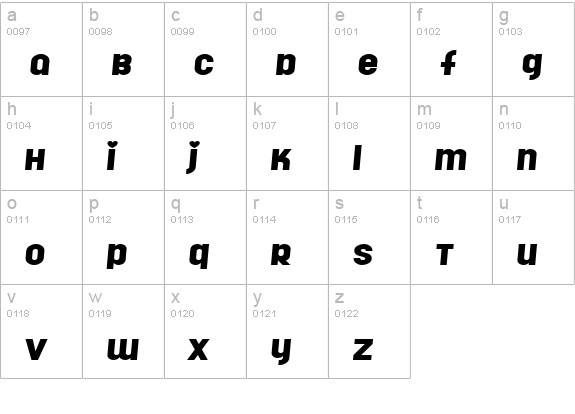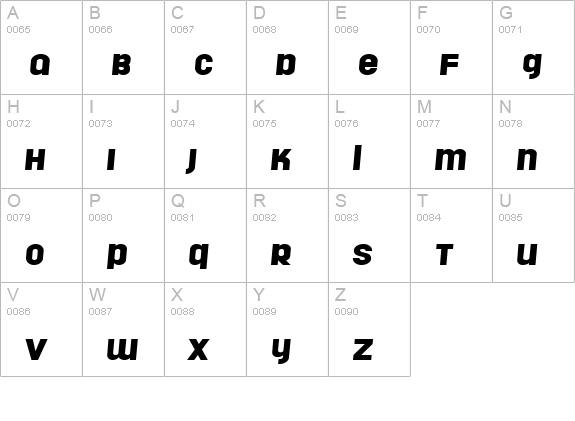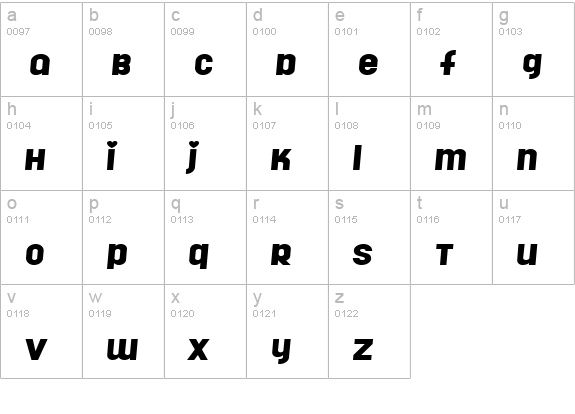
Rollergirls Font Details
Rollergirls font exudes an energetic and dynamic vibe, perfect for projects seeking a touch of edgy flair. With its bold and playful design, this font captures the spirit of the roller derby world and adds a fun and spirited touch to any creative endeavor. Rollergirls font is freely available for download at FontsMarket.com, allowing you to unleash your creativity without any constraints. Whether you're designing posters, logos, or social media graphics, Rollergirls font will bring a sense of excitement and movement to your work. Embrace the spirit of the roller derby with Rollergirls font and let your imagination run wild.